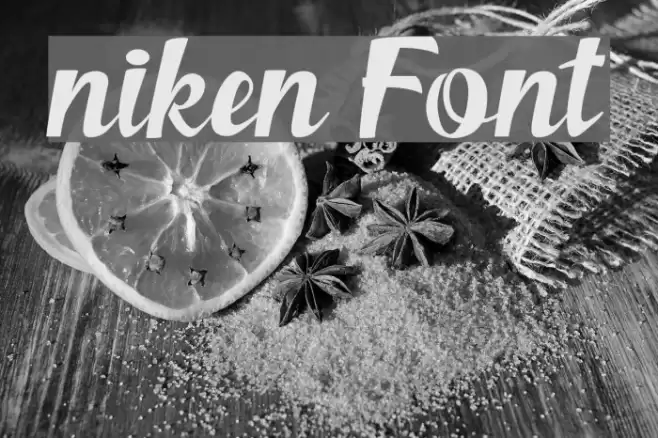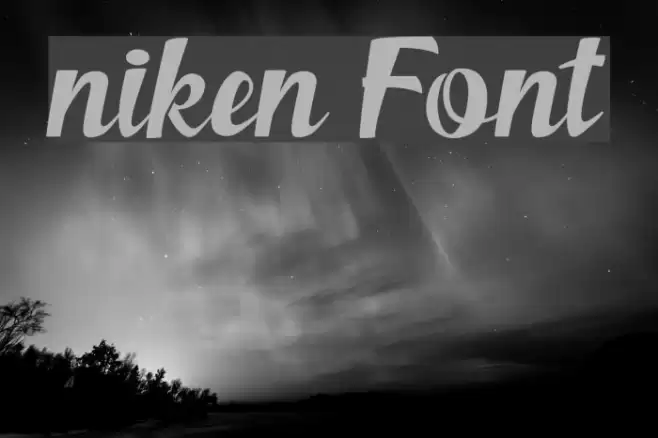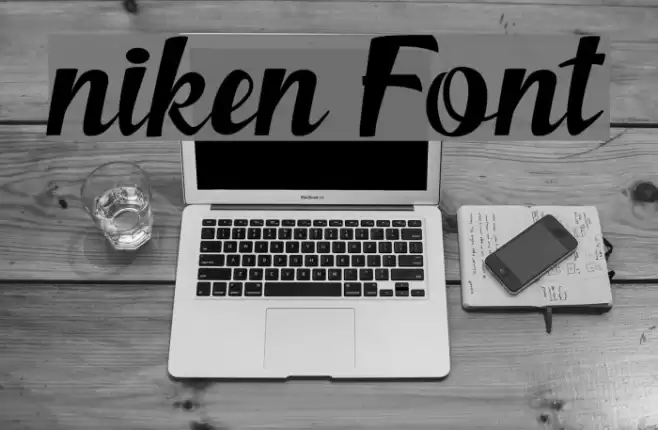
niken Font
niken Description
This font features a dynamic and bold script style with a strong presence. The characters are slightly slanted, giving a sense of movement and fluidity. The uppercase letters are particularly striking, with a mix of sharp angles and smooth curves that create a lively and energetic appearance. The lowercase letters maintain this energy with consistent slant and bold strokes. The numerals and special characters are designed to match the overall style, ensuring a cohesive look across all text. This font's boldness and unique style make it stand out, ideal for projects that require a touch of personality and flair.
A bold, dynamic script font with a lively and energetic style from Uncategorized fonts.
- Proposed Projects: Ideal for branding, advertising, posters, and any design that requires a bold, expressive touch.